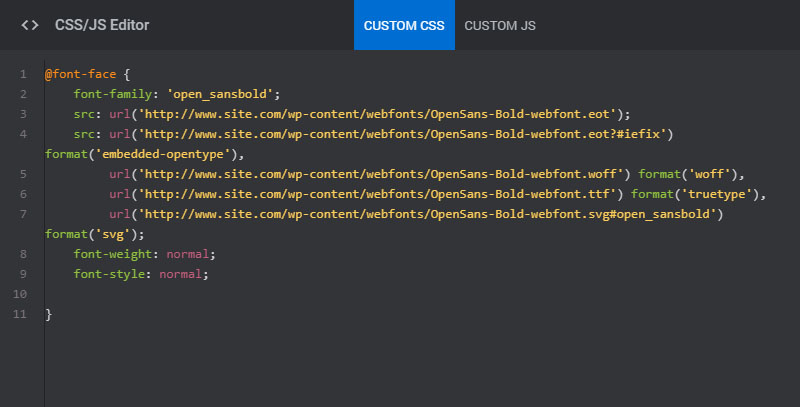
In css there are five generic font families: But, due to its simple style, it was revamped and introduced to the best font family for websites.
Free Most Common Font Family Css Basic Idea, Helvetica (max miedinger, 1957) helvetica is arguably the most famous typeface on the planet. Can be normal, italic, or oblique.
They are wide, bold and give a vintage vibe to your design. “web safe” fonts mean that they will look perfect no matter the browser you are viewing them from. Times font is a traditional newspaper print font. Its popularity makes sense not only when.
Comic sans ms (cursive) 1. The generic font name available in css are: They are wide, bold and give a vintage vibe to your design. In fact, this font dates back to the 16th century because of its structure.
Helvetica (max miedinger, 1957) helvetica is arguably the most famous typeface on the planet. Include the proper css fallbacks for the above fonts. It also worked even when you didn't specify it because the web uses woffor woff 2.0 which basically were built on truetype and it's the most common font format for both the mac os and microsoft windows operating systems. They are wide, bold and give a vintage vibe to your design. Css Font Family Cursive Example.
The font is flat and sharp. In css there are five generic font families: Its popularity makes sense not only when. Similar to using in html. CSS fontfamily.
Though garamond is an old school font, it is still the best font for website and reading. What is the meaning of font family? This font style is indicated by a small flourish stroke on letter edges. Because of its versatility, the font family contains more than 100 variations, including 22 different fonts in various weights, bolds, and. CSS Cheat Sheet contains the most common style snippets CSS gradient.
In fact, this font dates back to the 16th century because of its structure. “web safe” fonts mean that they will look perfect no matter the browser you are viewing them from. A font family is a set of fonts that have a common design. It also worked even when you didn't specify it because the web uses woffor woff 2.0 which basically were built on truetype and it's the most common font format for both the mac os and microsoft windows operating systems. CSS Basics Fallback Font Stacks for More Robust Web Typography.
It has clean lines, a crisp look, and is easily readable. Can be normal, italic, or oblique. Changes the style of the text, causing it to appear vertical or slightly slanted. Helvetica (max miedinger, 1957) helvetica is arguably the most famous typeface on the planet. What is the best sansserif font? Quora.
Choosing a font family or font families is one of the most common tasks during working with the css. At the time of writing this article, there are over 1,000 google font families, almost 2,000 adobe fonts, 15,000 fonts at fonts.com, and almost 35,000 fonts at myfonts.com. This font style is indicated by a small flourish stroke on letter edges. This font style does not include edge strokes. CSS Basics Fallback Font Stacks for More Robust Web Typography CSS.
When you have found/bought the font you wish to use, just include the font file on your web server, and it will be automatically downloaded to the user when needed. Include the proper css fallbacks for the above fonts. Times font is a traditional newspaper print font. What is the meaning of font family? CSS Fonts MEGATEK ICT ACADEMY.
Times font is a traditional newspaper print font. (3) finally, use the convert button and download the new converted fonts. The site will take the chosen string (fonts with respective fallbacks) from a database and insert it (via php) into aspects of a page. But, due to its simple style, it was revamped and introduced to the best font family for websites. CSS Part 12 FONT CSS.
It adds styles to a single html element with a css style attribute. Comic sans ms (cursive) 1. This font is popular for branding, signage, and online applications. In this post we take a look at some fonts that are already installed on your visitors computers most of the time. Unique Web Fonts to Spice Up your Layout Designs Bittbox.
A Popular Method To Further Style Your Font Is Using Inline Css.
What is the meaning of font family? Google’s android system uses its own as well. 30 gorgeous web safe fonts to use with css. Neue helvetica is the second most popular font on the web, with over 218,000 websites like facebook, yahoo, and ebay using it.